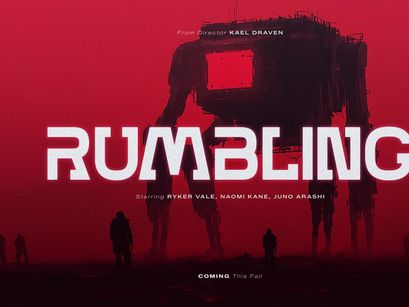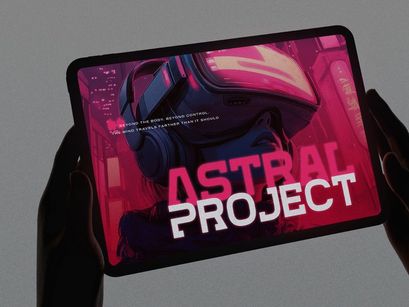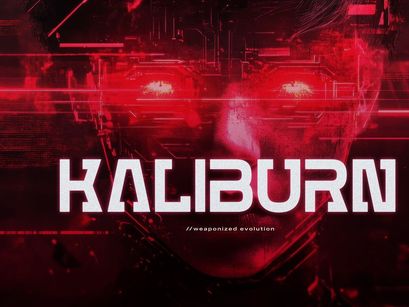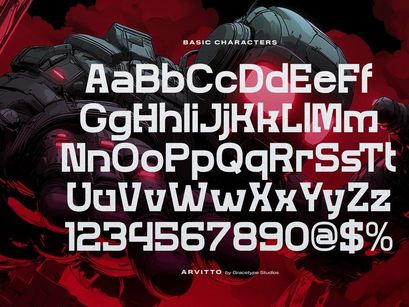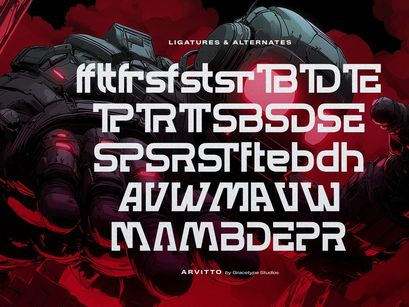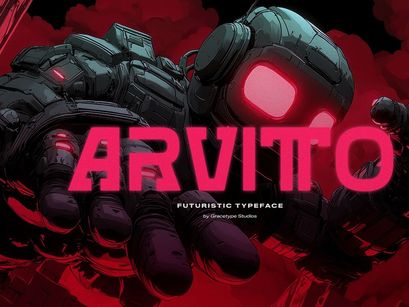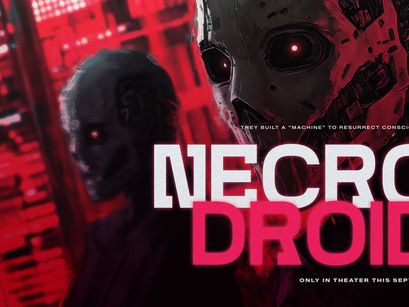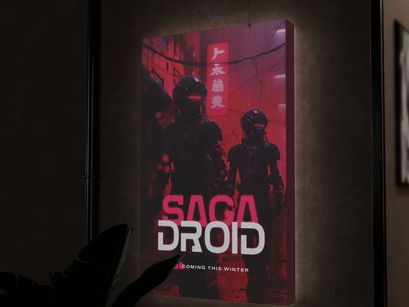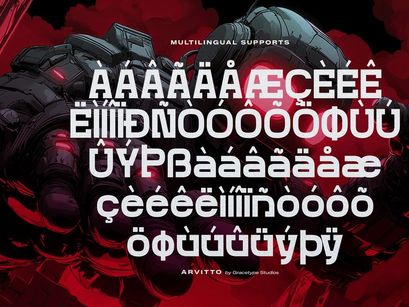
Arvitto | Futuristic Typeface, from Gracetypestudio, suitable for any projects such as: logos, branding projects, homeware designs, product packaging, mugs, quotes, posters, shopping bags, t-shirts, book covers, name card, invitation cards, greeting cards, label, photography, watermark, special events, and all your other lovely projects that need a Futuristic taste.